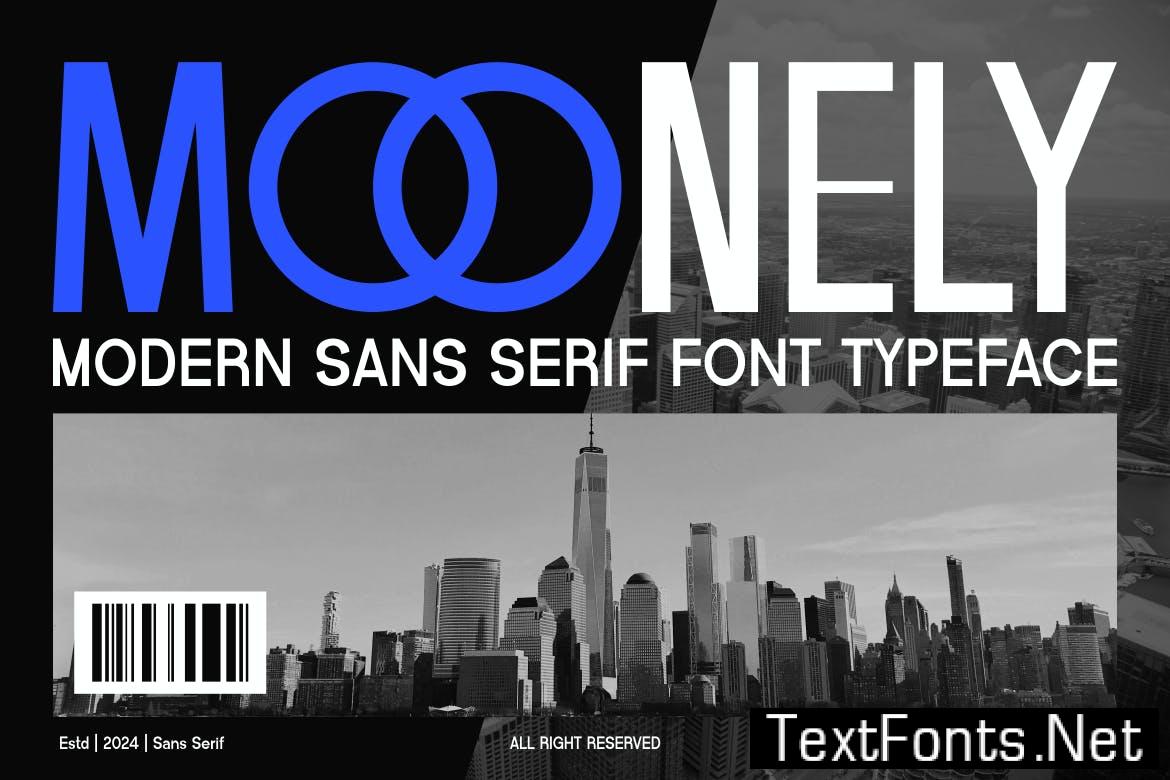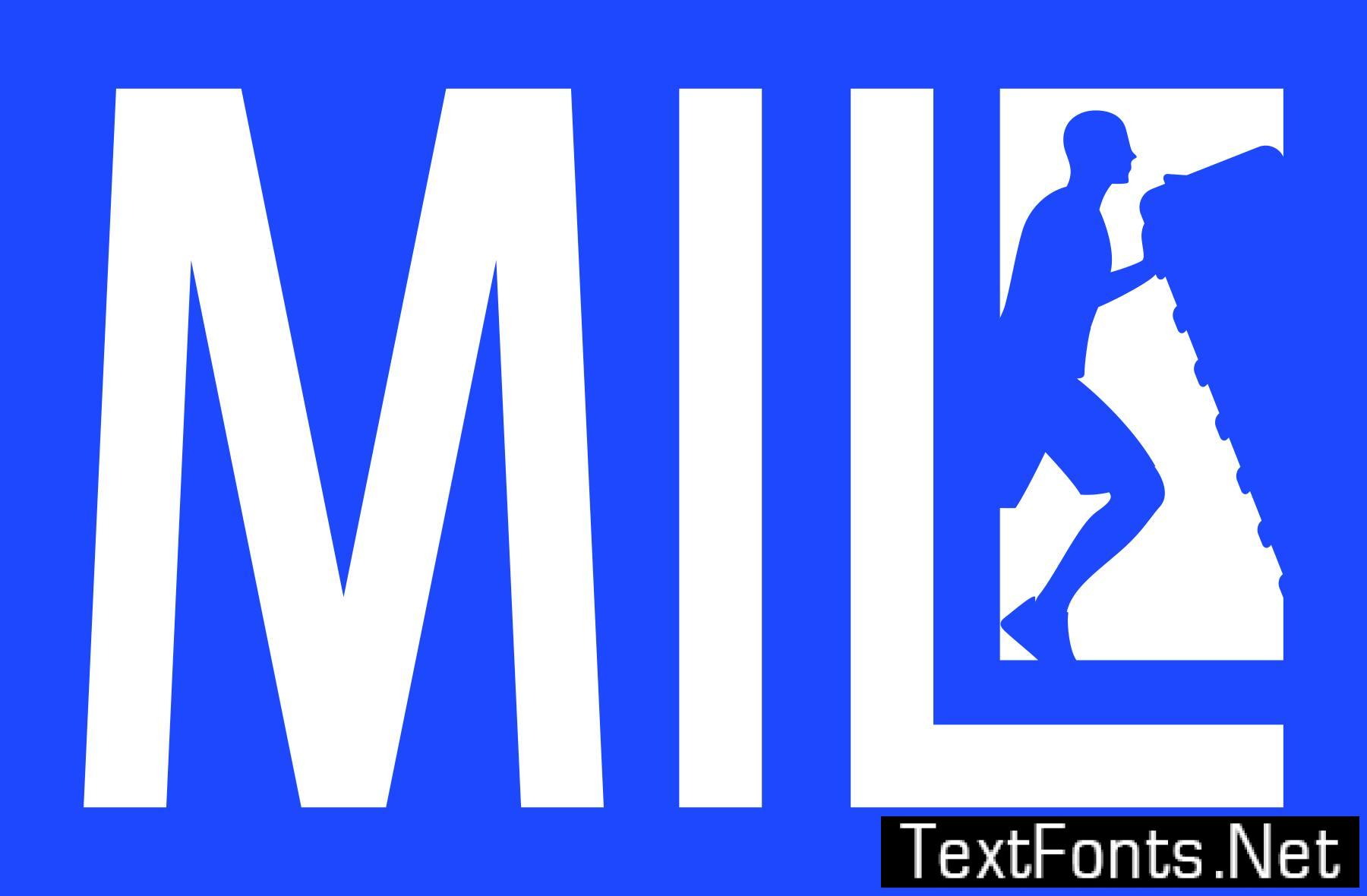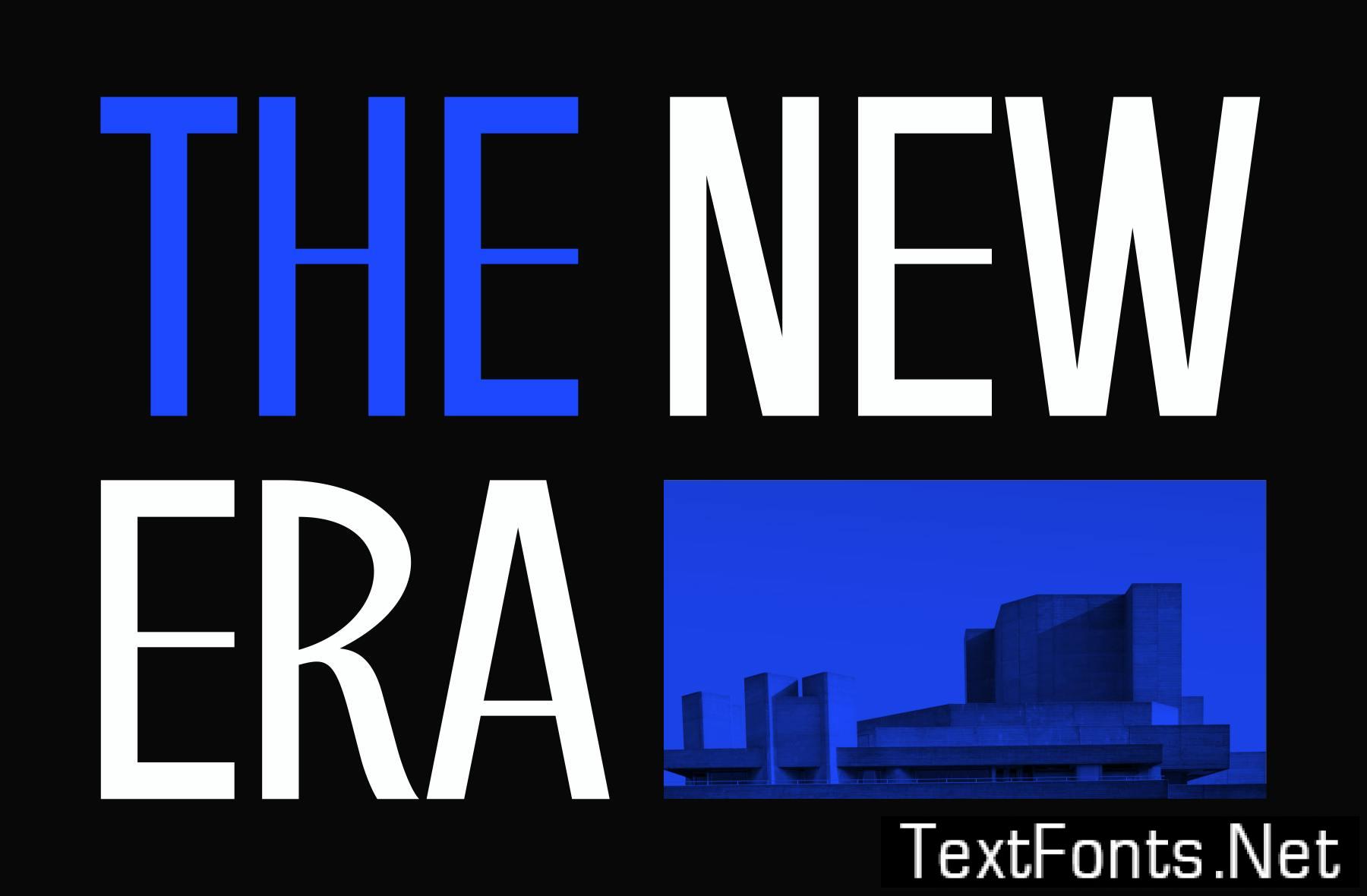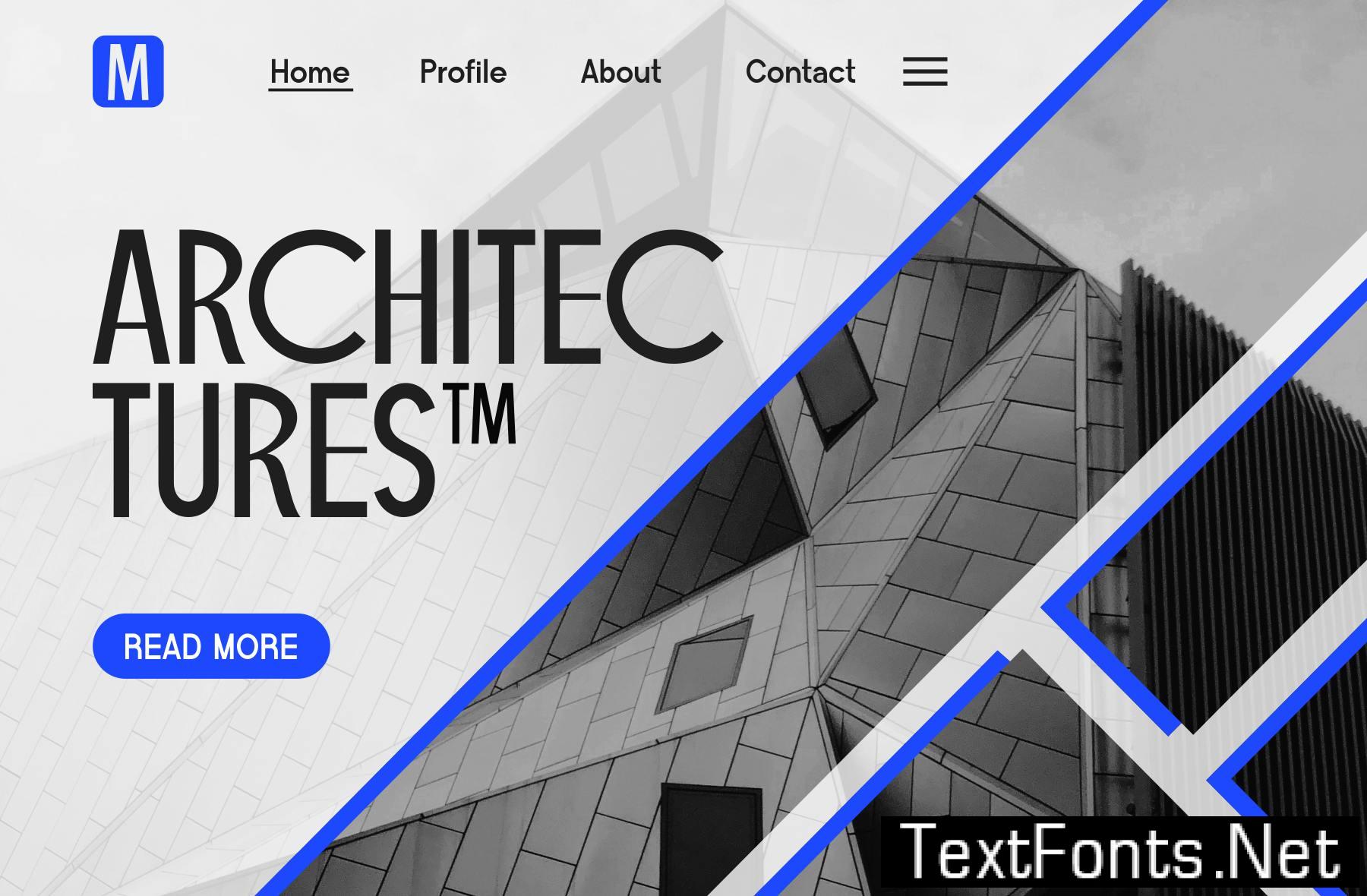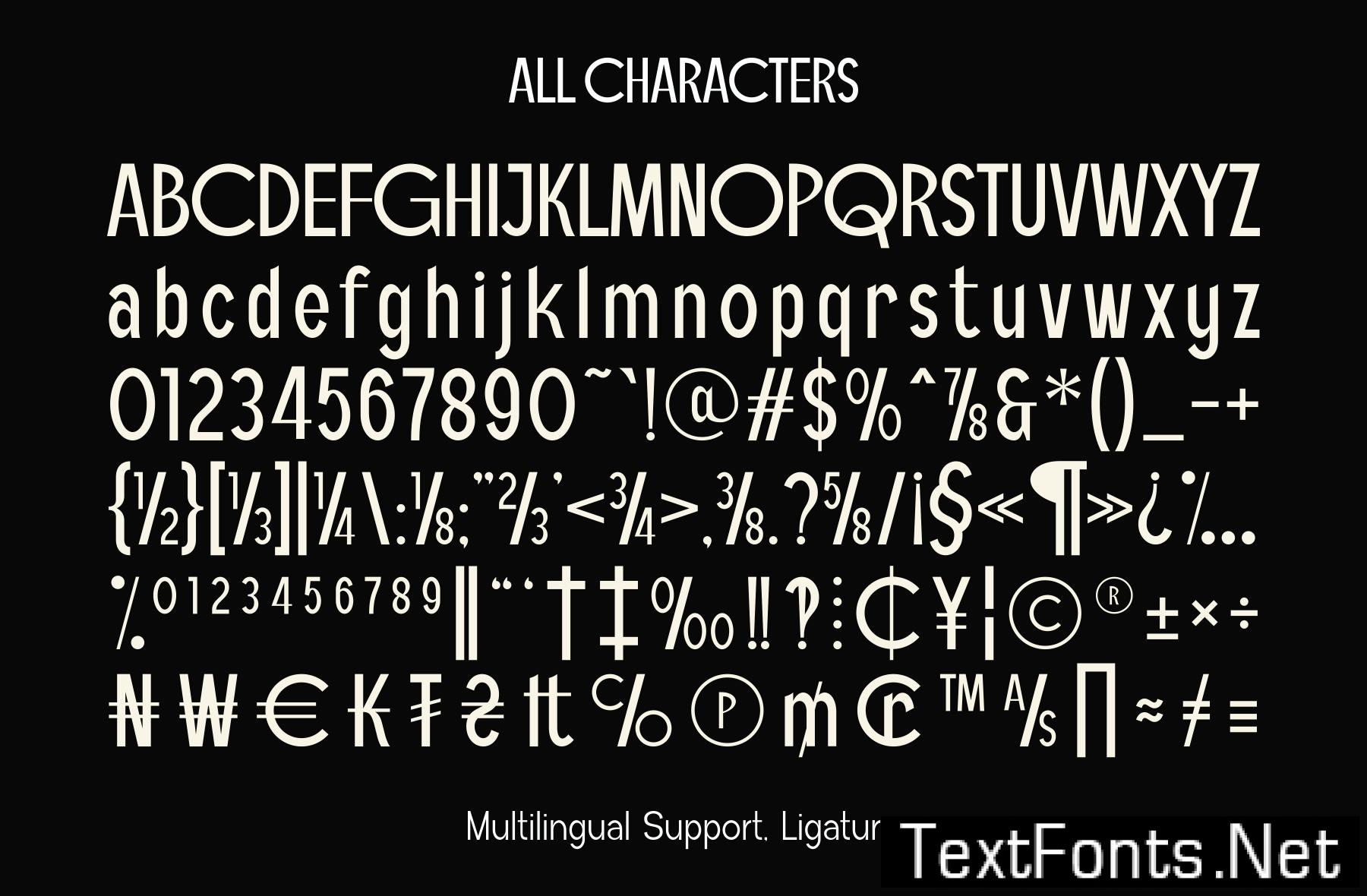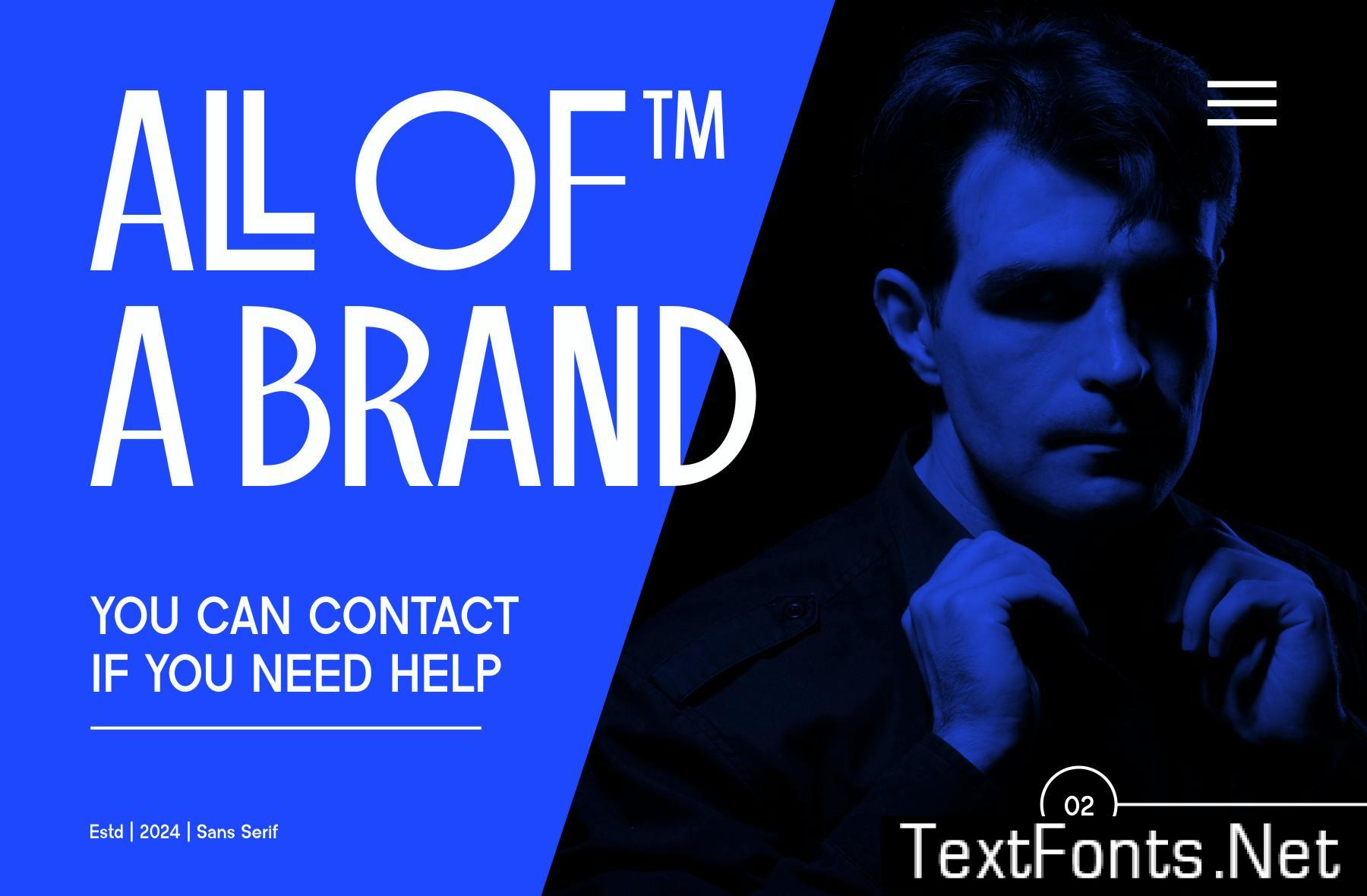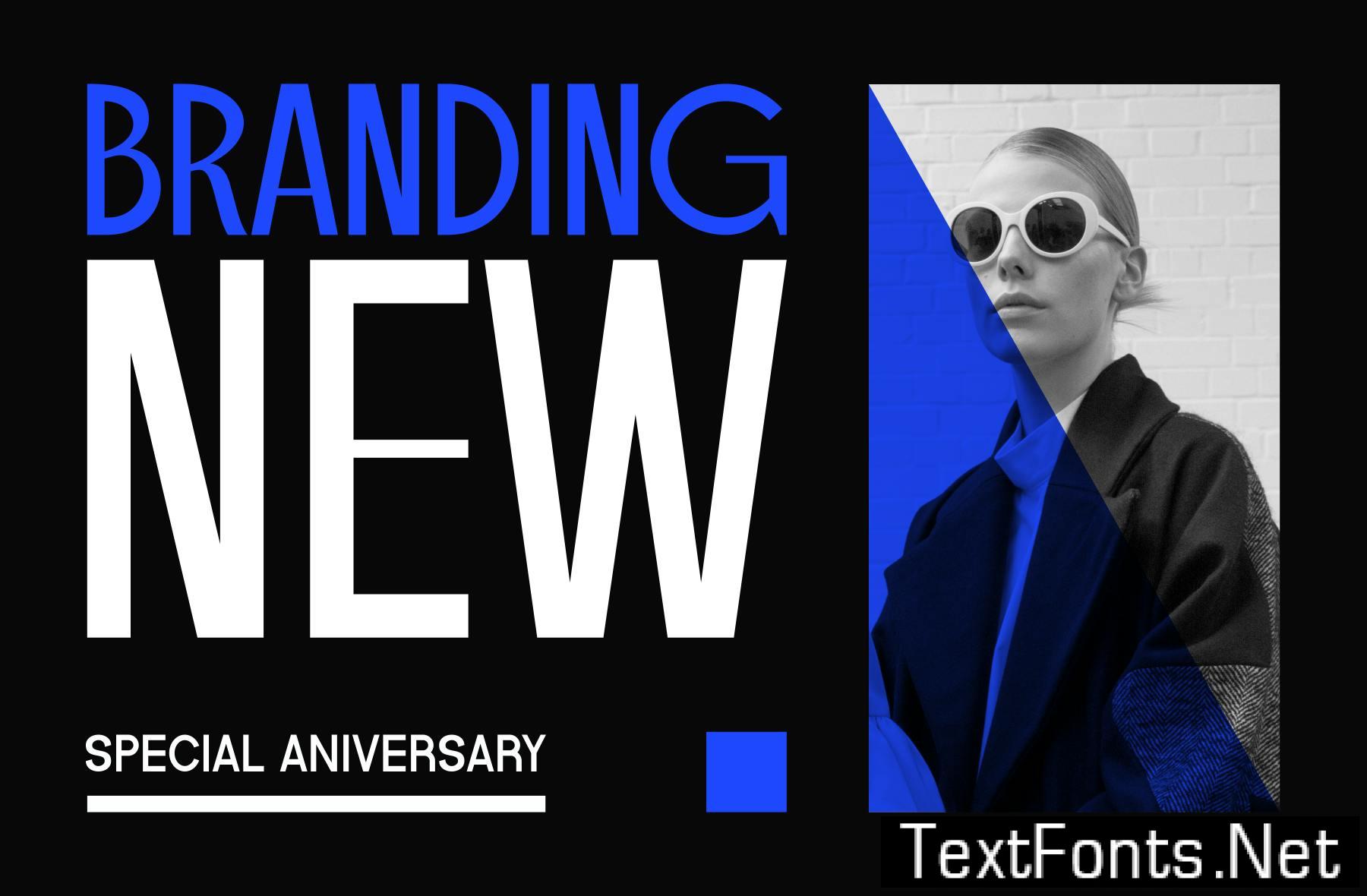
Introducing our new product **Moonely** – Modern Sans Serif Typeface
This Font is a very flexible choice and can be used in a variety of design contexts. Its ability to provide a clean, professional, contemporary look and its simplicity and visual appeal make this font good for use in the world of graphic design and modern typography.
* Uppercase
* Lowercase
* Multilingual
* Ligature